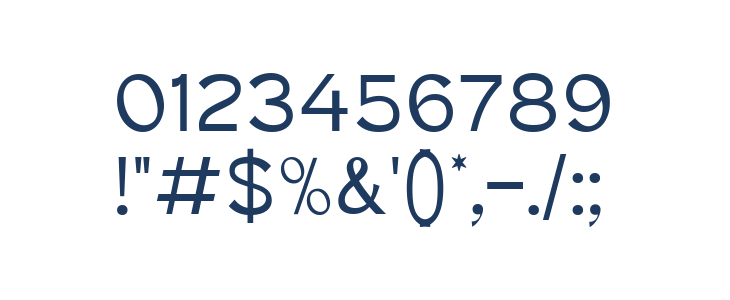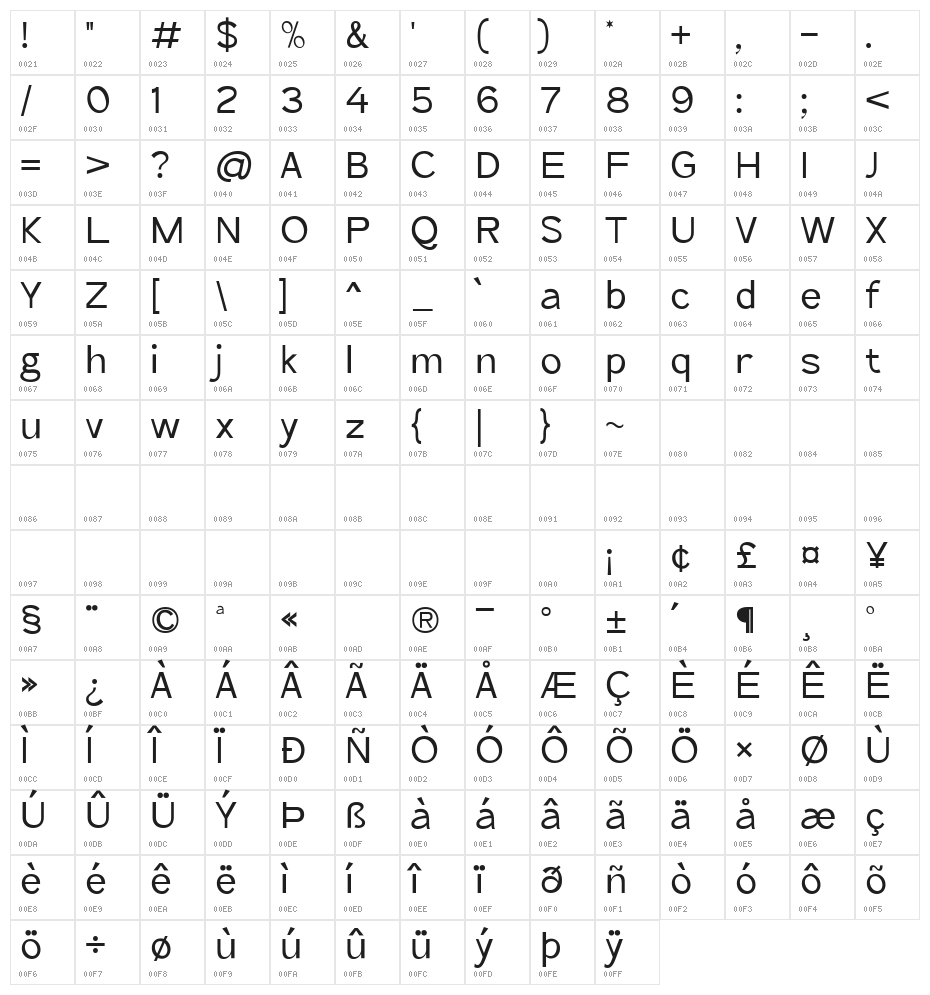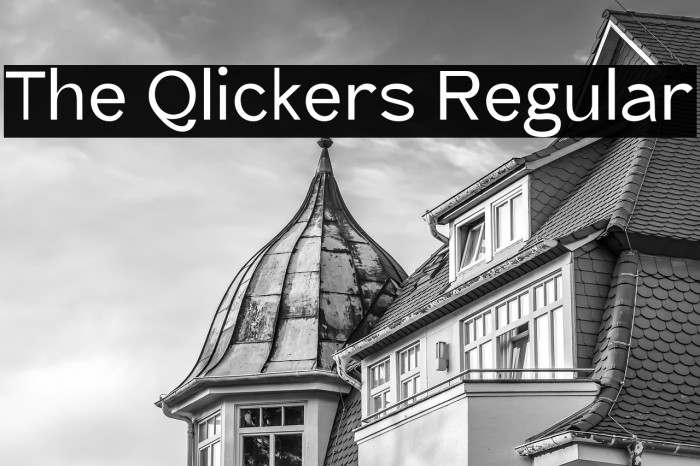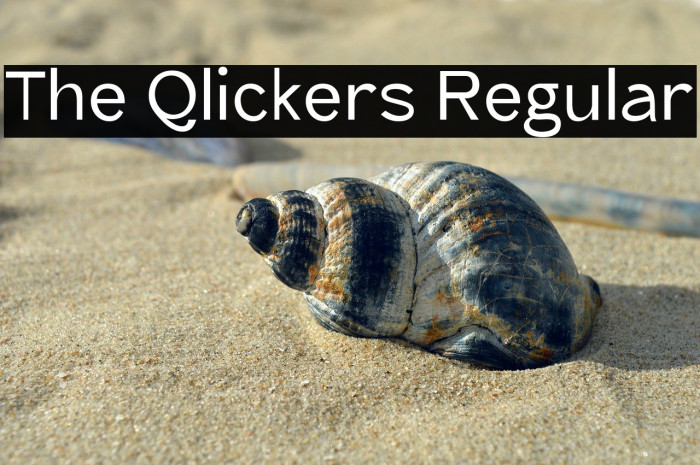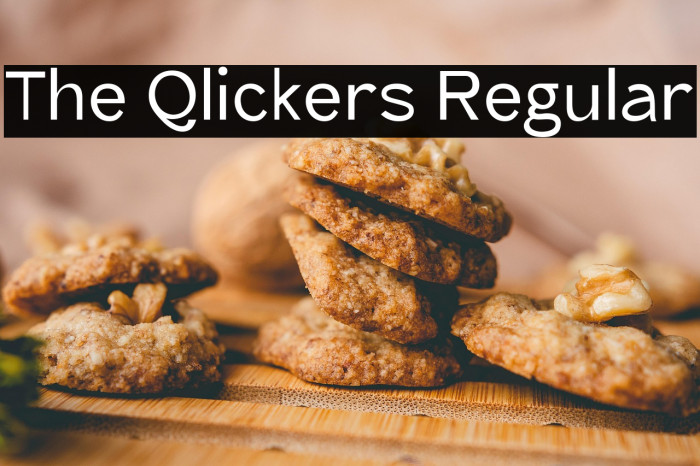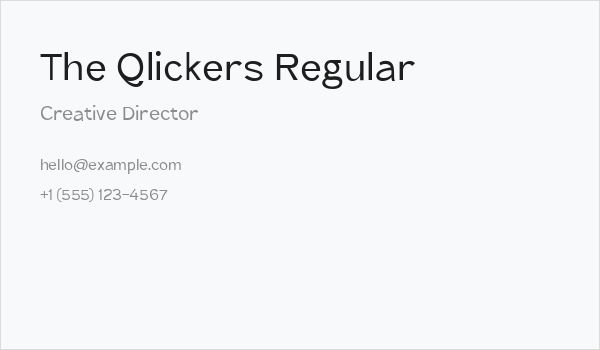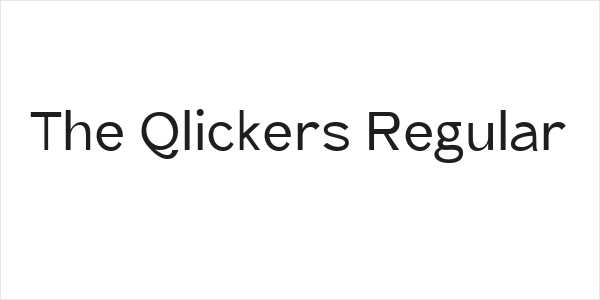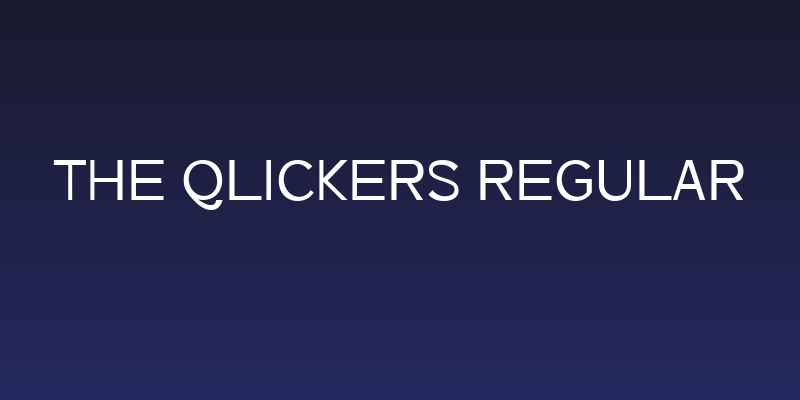
The Qlickers Regular Font
The Qlickers Regular Description
This font features a clean and modern sans-serif design, characterized by its geometric shapes and balanced proportions. The uppercase letters are bold and assertive, while the lowercase letters maintain a friendly and approachable appearance. The numerals are clear and easy to read, making them suitable for both digital and print applications. The special characters are well-integrated, providing a cohesive look across all glyphs. This font's simplicity and clarity make it versatile for a wide range of design projects.
| Proposed Projects | Ideal for branding, web design, advertising, and editorial layouts. |